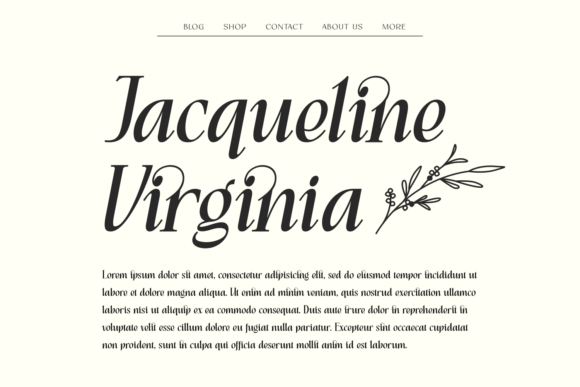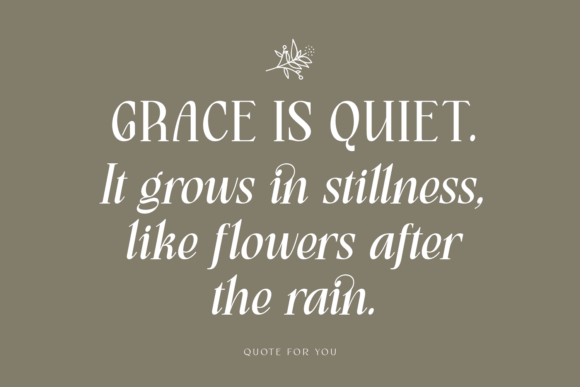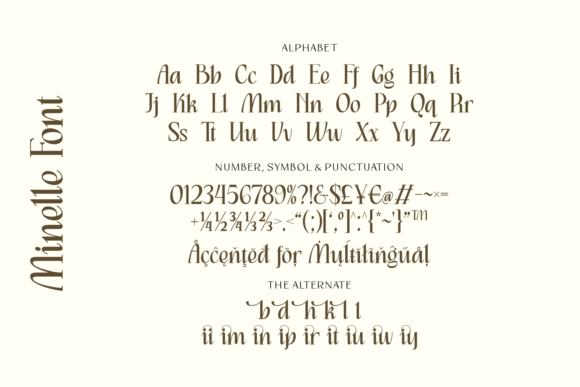
Introduction to Minelle Font
As a designer, have you ever found yourself pouring over a blank page, struggling to bring your creative vision to life? The spark of inspiration hits, and suddenly, the perfect font materializes in your mind’s eye. For those seeking that elusive design magic, we’re excited to introduce you to the enchanting Minelle Font.
With its ethereal curves and delicate serifs, the Minelle Font is a masterclass in elegance and sophistication. This beautifully crafted serif font is a game-changer for designers looking to elevate their creative projects. Whether you’re crafting a luxurious brand identity, designing a wedding invitation, or creating a high-end cosmetics label, the Minelle Font’s refined beauty is sure to captivate your audience.
Key Features of Minelle Font
- High-quality, elegant design perfect for creative projects, making it an excellent design resource.
- Includes a range of characters, including uppercase and lowercase letters, numbers, and symbols.
Honest Review: Minelle Font
I recently came across the Minelle Font, a free download that caught my attention. As a designer, I appreciate discovering high-quality design resources that can elevate my creative projects.
One thing that works well with the Minelle Font is its versatile design. It’s perfect for various projects, from digital art to editorial content. The font is also available in different weights, which gives designers flexibility in their designs. I particularly like the cursive style, which adds a touch of elegance to any design. ✨
Another benefit of the Minelle Font is its transparent background, making it easy to integrate into any design without worrying about unwanted background noise. This feature is particularly useful when working on designs that require a clean and minimalist look.
However, I did encounter some limitations while working with the Minelle Font. For instance, the font may not be as legible at smaller font sizes, which can be a concern for designers who need to ensure readability across various devices and platforms. ⚠️
Overall, I’m impressed with the Minelle Font’s potential and would recommend it to designers looking for a free, high-quality font for their creative projects.
- Versatile design
Getting the Most Out of Minelle Font
To get the most out of the Minelle Font, use it in combination with other design elements to create a cohesive look. Experiment with different font sizes, colors, and styles to achieve the desired effect.
The Minelle Font is commonly used for creative projects such as logos, graphics, and presentations. Its high-quality design and transparent background make it ideal for use in a variety of design applications.